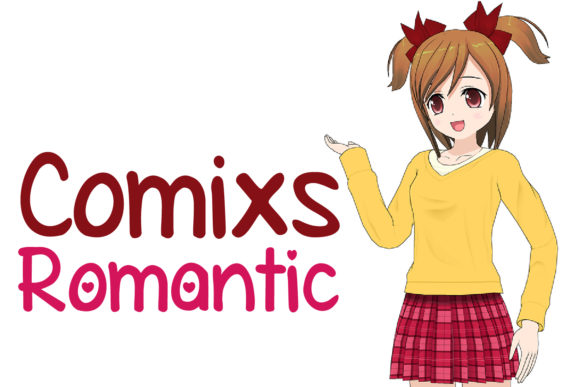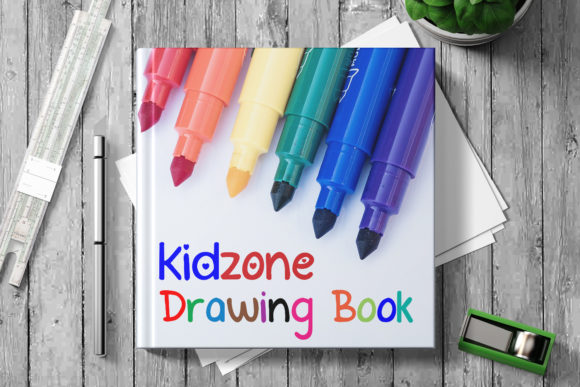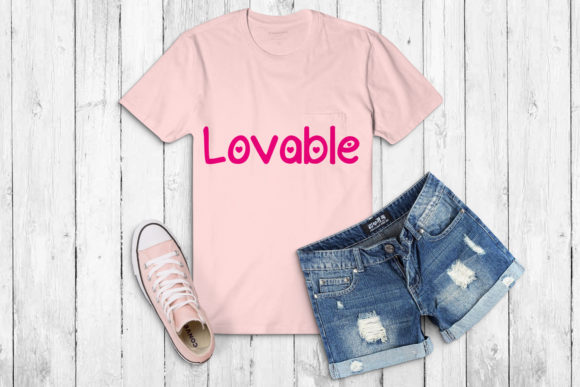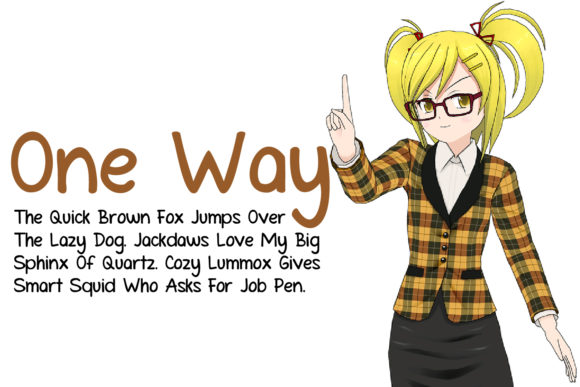
Comixs Duo Font
Comixs is a clean and fun handwritten font with a whimsical touch. Inspired by comics, it will turn any design project into an eye catcher!